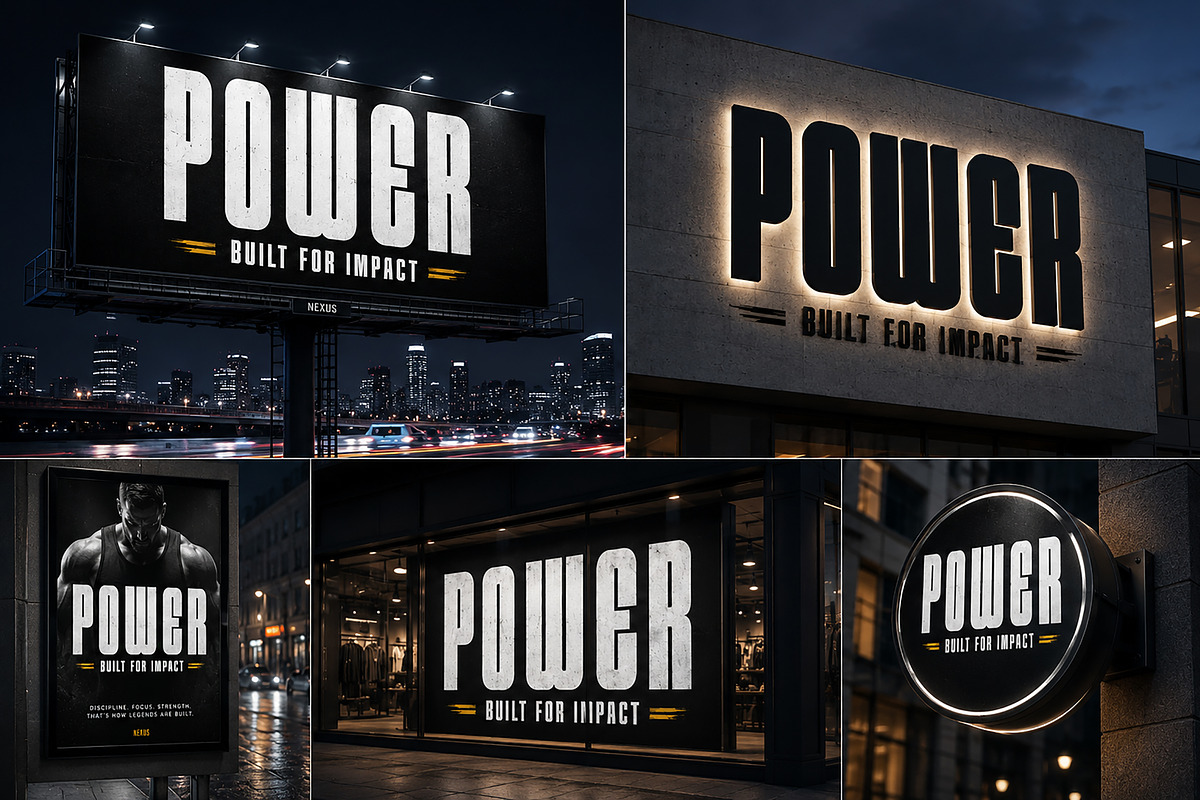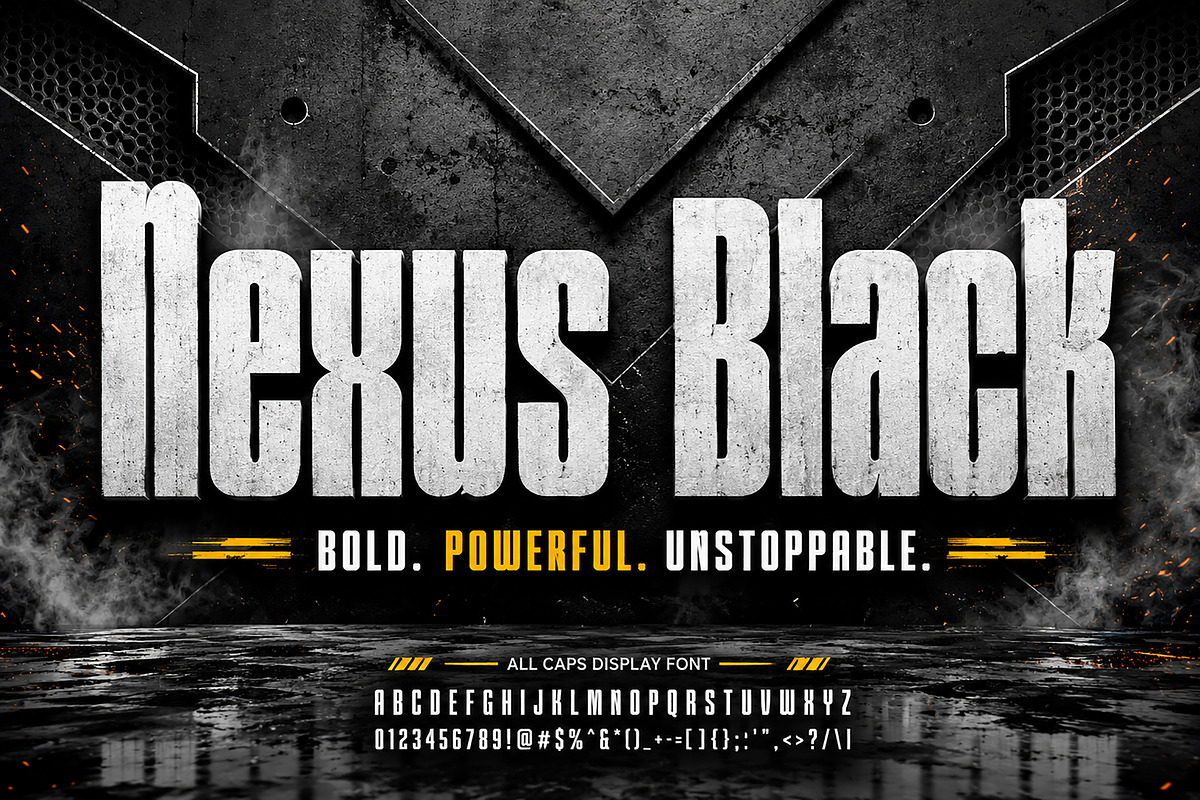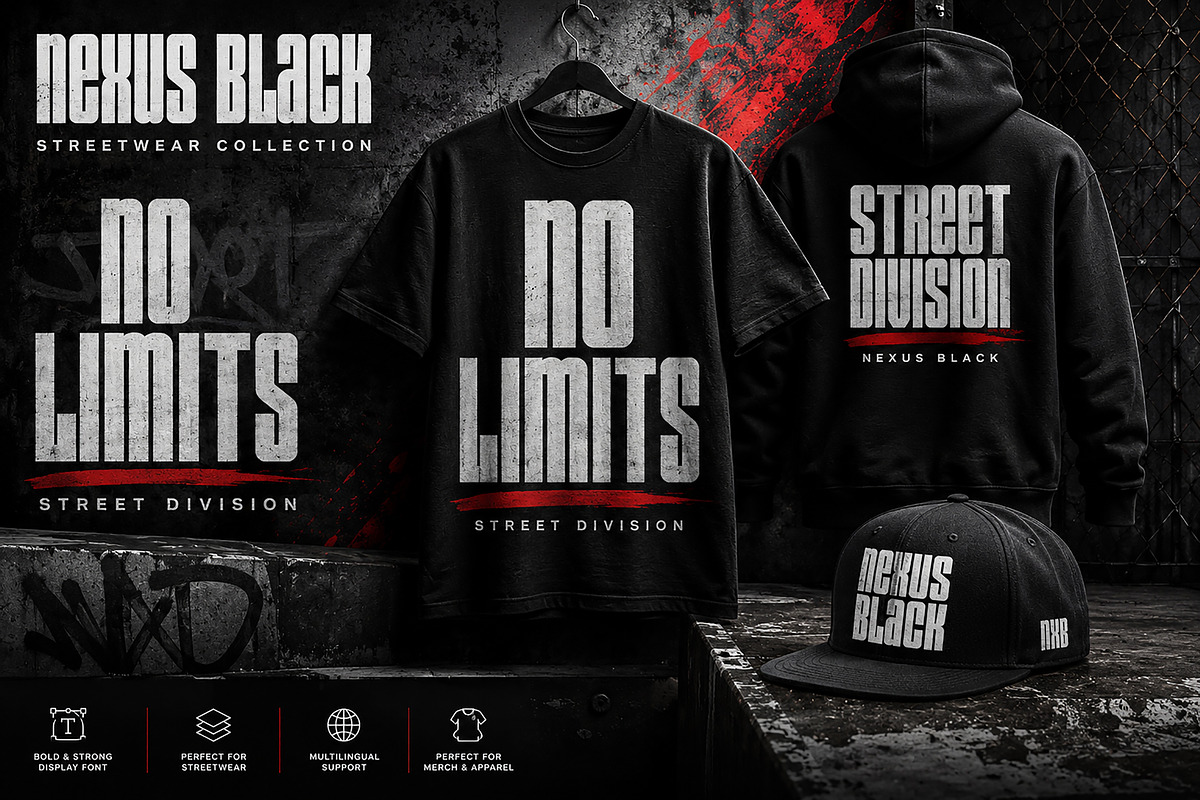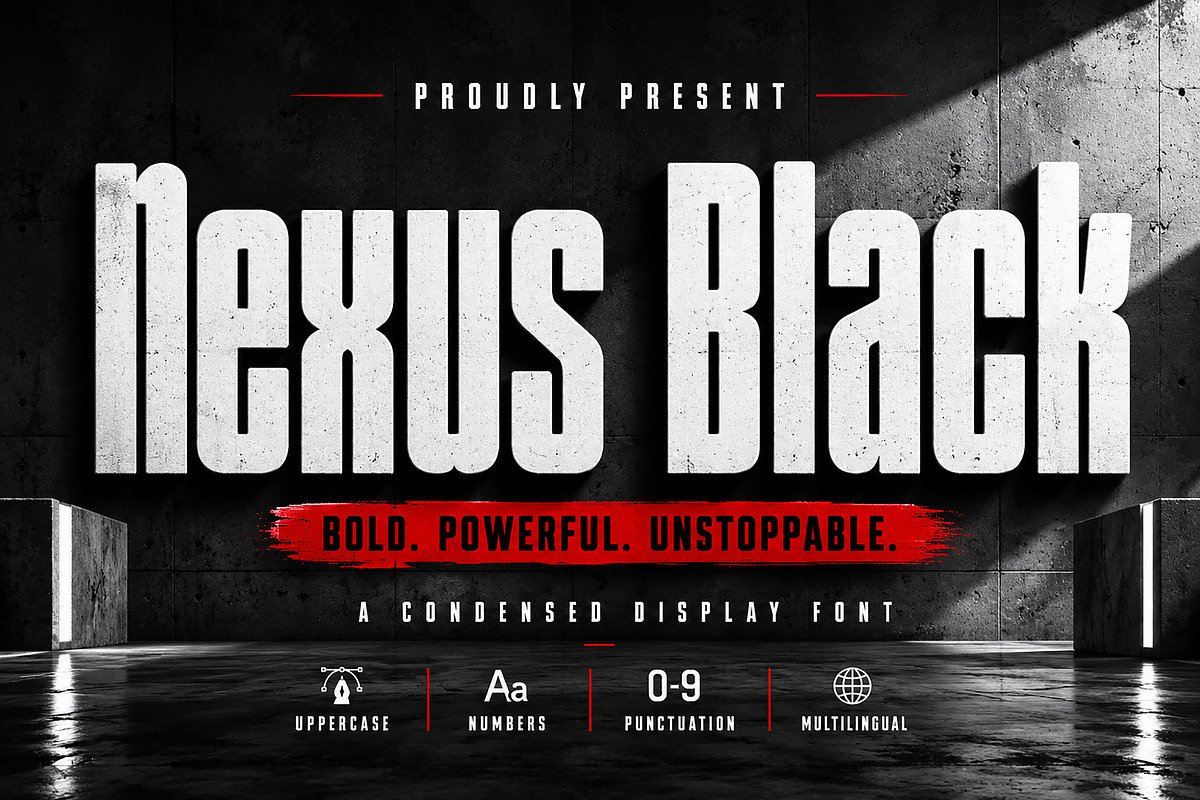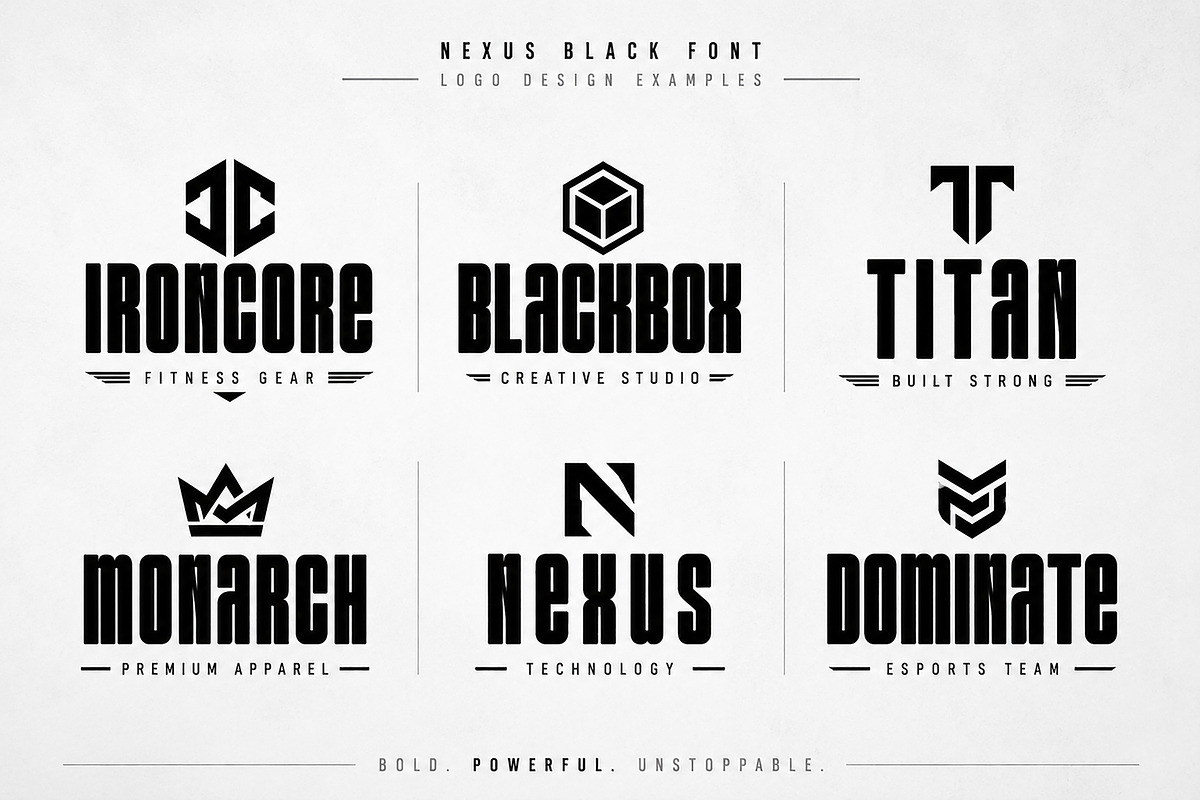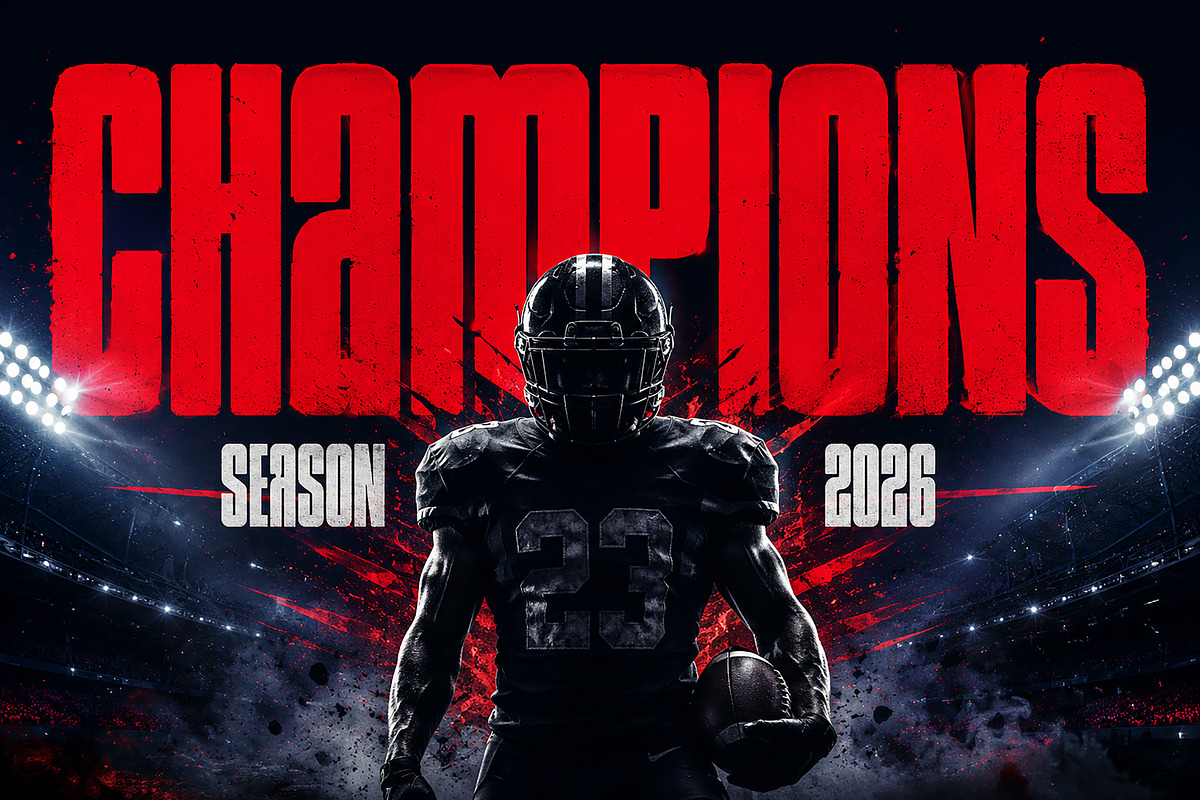
Nexus Black
Nexus Black – Bold Condensed Display Font
Nexus Black is a bold, condensed display font built for maximum impact. Designed with strong geometric forms and powerful vertical proportions, this typeface delivers a modern industrial aesthetic that commands attention in any design.
Whether you're creating sports branding, esports graphics, streetwear apparel, posters, logos, packaging, advertising campaigns, or social media content, Nexus Black provides the confidence and strength needed to make your message stand out.
Its clean structure and heavy weight make it highly versatile for large headlines, branding projects, merchandise designs, and promotional materials. With a bold urban personality and professional finish, Nexus Black is the perfect choice for designers seeking a strong, modern, and unforgettable display font.
Sports Branding
Esports Teams
Streetwear & Apparel
Posters & Flyers
Billboard Advertising
YouTube Thumbnails
Product Branding
Store Signage
Magazine Headlines
Uppercase Letters
Modern Condensed Style
Strong Display Character